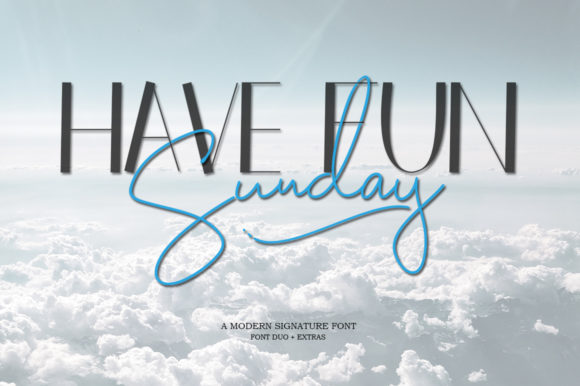
Have Fun Sunday Duo Font
Embrace the vibrancy of the 'Have Fun Sunday Duo Font,' where elegance meets charm, crafted with meticulous detail by Natural Ink. This font family, resplendent in its script style, captures the vivacity of a Sunday morning stroll, filled with laughter and joy. Immerse yourself in the beauty of its swashes, dancing across your designs like a gentle breeze, evoking a sense of timeless romance.
Let your creativity flourish with the captivating 'Have Fun Sunday' font, a harmonious blend of contemporary and sophisticated accents. From whimsical illustrations to heartfelt messages, this versatile font family adapts effortlessly to a myriad of projects. Its graceful strokes, reminiscent of handwritten notes, infuse your designs with a touch of genuine emotion, adding a layer of intimacy and authenticity.
Unleash your imagination and craft designs that radiate warmth and charm with the 'Have Fun Sunday' font duo. Its regular, sans, and swash weights offer endless possibilities for customization, allowing you to create stunning visuals that resonate with your audience. Whether you're a seasoned designer or just starting your creative journey, this font family is your perfect companion, guiding you towards captivating and memorable designs.
Discover the magic of the 'Have Fun Sunday Duo Font' and embark on a creative adventure like no other. Its versatility knows no bounds, seamlessly enhancing wedding invitations, greeting cards, social media posts, branding projects, and more. Let your imagination soar as you explore the limitless possibilities of this remarkable font family.
Elevate your designs to new heights with the 'Have Fun Sunday' font duo, a testament to the power of creativity and self-expression. Join the countless designers who have embraced its charm and let your designs bloom with elegance, sophistication, and a touch of playful delight. Unleash the beauty of 'Have Fun Sunday' today!